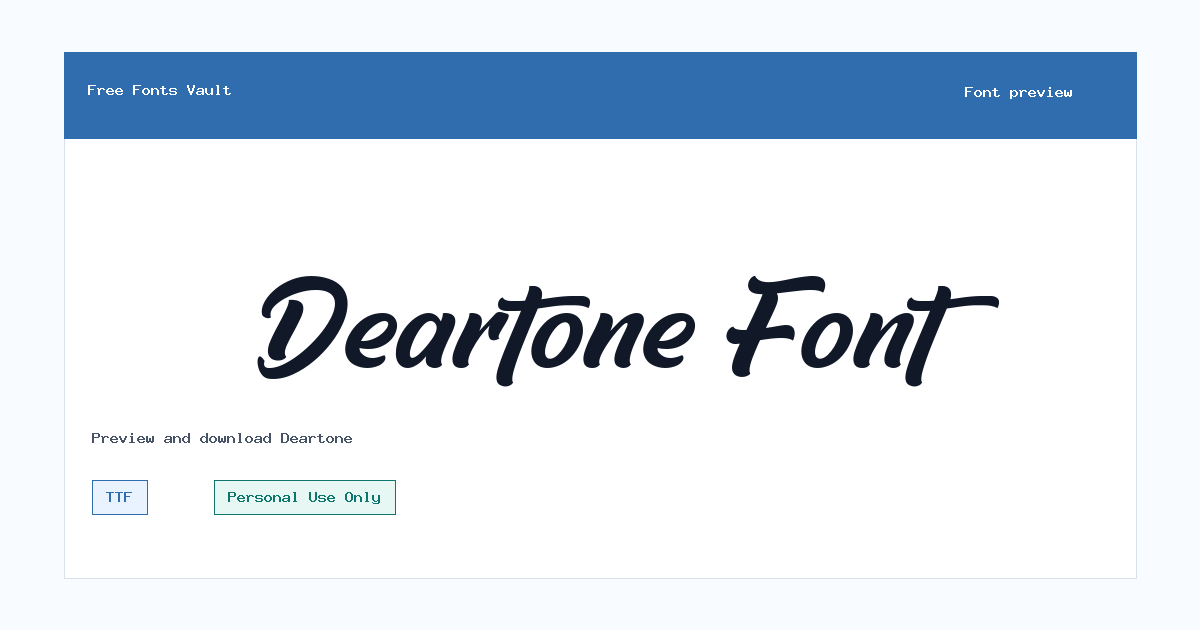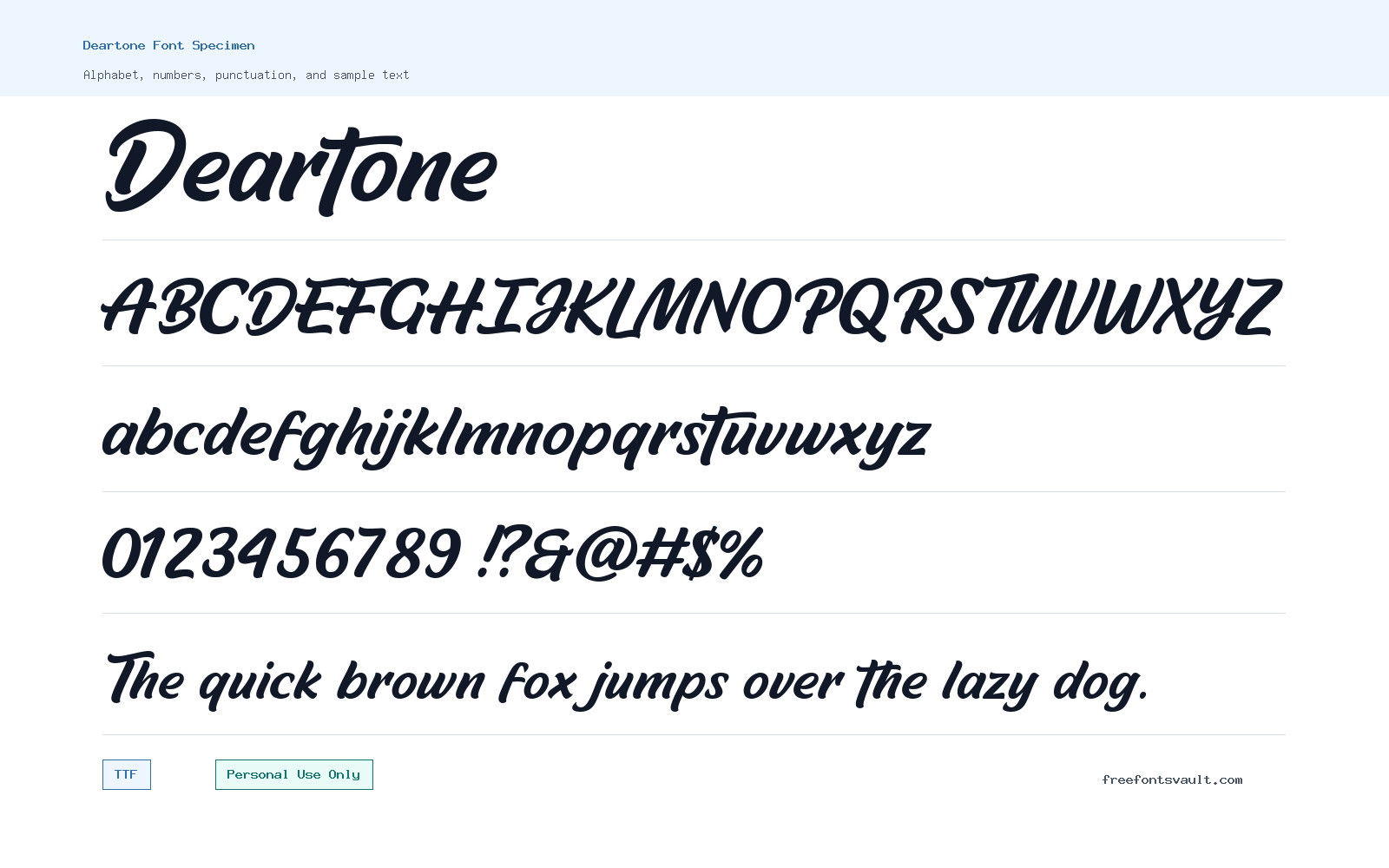
Deartone
- Designer Muhamad Fikry Nuralif
- Foundry Fikryal Studio
Deartone font.
Deartone is a handwritten script font with a casual, flowing look. It is best suited to short display text where a softer hand-lettered style can stand out without needing heavy decoration.
About Deartone Font
Deartone works like a personal script face: relaxed, expressive, and better for names, titles, and short phrases than for long reading blocks. Its regular TTF file uses a normal style and 400 weight, so it should be easy to test in most design apps, browser previews, and basic font managers. Because it is a script font, the most useful preview test is not just the alphabet. Try your actual words, especially names, brand-style phrases, greetings, and headings, to see how the letter connections and spacing feel.
Use Deartone where the text can have room to breathe. It can suit invitation mockups, social graphics, quote cards, packaging concepts, watermarks, personal logos, and decorative headings. For clearer layouts, pair it with a simple sans serif or a quiet serif for supporting text. Avoid setting full paragraphs in this font, and be careful with very small sizes, all-caps text, or crowded compositions, because script letterforms can lose clarity when they are compressed.
- Handwritten script style for short display text and decorative wording
- Invitations, greeting cards, quote graphics, and personal stationery
- Logotype drafts, watermark text, packaging mockups, and social media titles
Deartone is credited to Muhamad Fikry Nuralif and Fikryal Studio.
What kind of font is Deartone?
Deartone is a handwritten script font. It is meant for decorative text, names, headings, and short phrases rather than long paragraphs.
Who designed Deartone?
The font is credited to Muhamad Fikry Nuralif, with Fikryal Studio listed as the foundry.
How should I pair Deartone with other fonts?
Pair it with a clean sans serif or a simple serif for smaller text. Let Deartone handle the main decorative word or headline, then keep supporting information plain and easy to read.